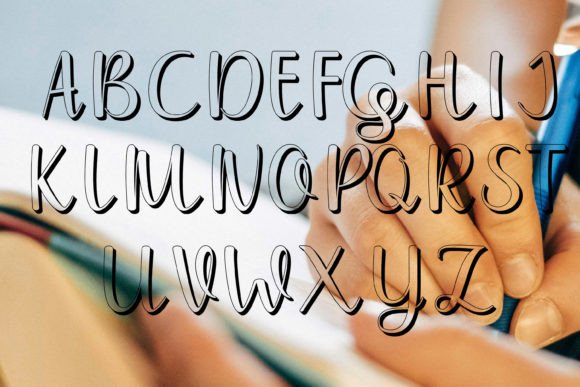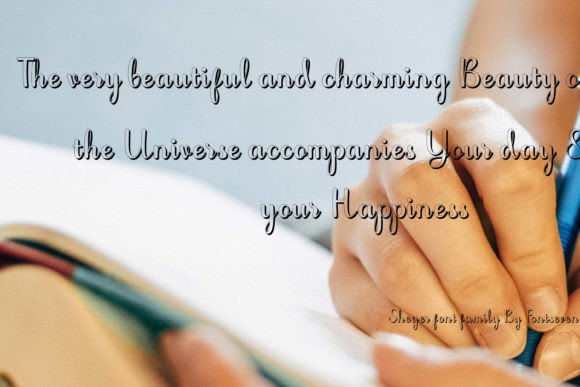
Introduction to Sheger 3d Font
Imagine yourself sitting in a cozy café, surrounded by the gentle hum of creative minds at work. You’re sipping on a warm cup of coffee, and the perfect font is staring you right in the face – the Sheger 3D Font. This beautifully crafted script font is a game-changer for designers, offering a unique blend of elegance and sophistication that’s sure to elevate any creative project.
As a designer, you know the importance of having the right tools at your disposal. The Sheger 3D Font is a high-quality design resource that’s perfect for adding a touch of personality to your work. With its three-dimensional style and transparent background, this font is sure to stand out in any design. And the best part? It’s available for free download, making it an accessible and valuable addition to your design arsenal.
Key Features of Sheger 3d Font
- High-quality 3D font design with intricate details, suitable for use in various design contexts.
- Large character set with over 1000 glyphs, including international characters and punctuation marks.
- Designed at a high resolution of 300 DPI, ensuring crisp and clear text display in various sizes.
- Perfect for use in creative projects such as logos, branding materials, and digital signage, where a unique and eye-catching font is required.
- Sheger 3d Font is a versatile design resource that can be used in a variety of creative contexts, from web design to print media.
Honest Review: Sheger 3d Font
I recently stumbled upon the Sheger 3d Font, and I must say, it’s a game-changer for any creative project that requires a unique, eye-catching design. The font is available for free download, which is a massive plus for designers on a budget.
- ✨ The Sheger 3d Font has a high quality, 3D-like effect that adds a touch of sophistication to any design.
- ✨ It’s incredibly versatile and can be used for a wide range of creative projects, from logos to brochures.
- ✨ The transparent background option allows for seamless integration with other design elements.
- ⚠️ The font may not be suitable for smaller text sizes, as the 3D effect can make it difficult to read.
- ⚠️ It’s not available in as many font styles as some other popular fonts, which may limit its use in certain design contexts.
Overall, I’m thoroughly impressed with the Sheger 3d Font. It’s a fantastic design resource that’s perfect for designers looking to add a unique touch to their projects. With its high quality design and transparent background option, it’s a must-have for any creative project.
Sheger 3d Font is commonly used in creative projects such as graphics, logos, and typography-based designs. Its unique 3D effect makes it perfect for adding a touch of sophistication and elegance to your design.